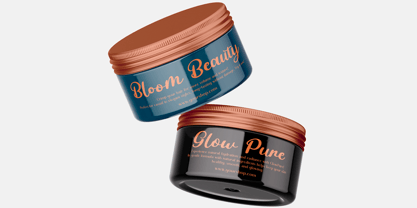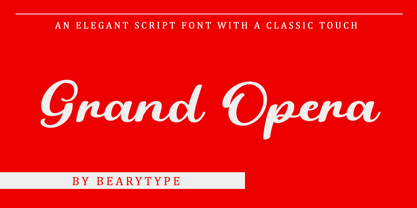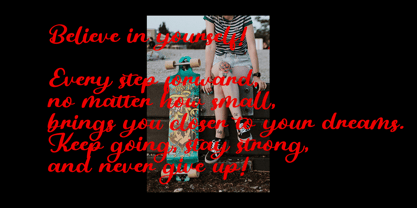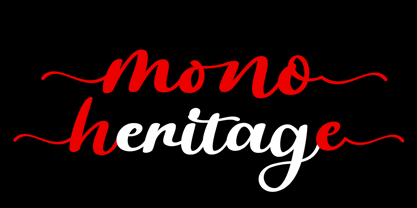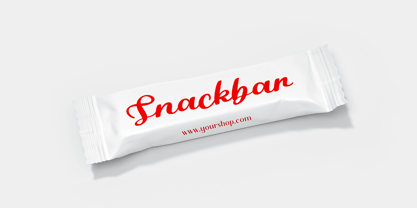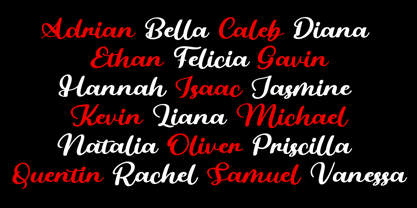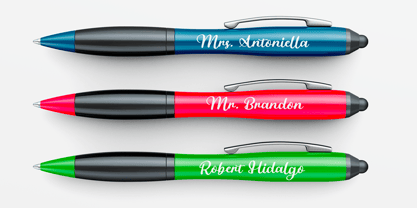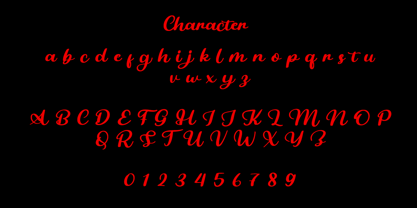
Grand Opera
by Beary
The Grand Opera Font Family was designed by Dian Haniffan Hadi and published by Beary. Grand Opera contains 1 styles.
Introducing Grand Opera!
An elegant handwritten font with a captivating classic touch!
If you’re seeking a luxurious font for invitations, branding, or any other design that demands refinement, Grand Opera brings that sophisticated flair. With its delicate curves, it evokes the feeling of a handwritten masterpiece.
This isn’t your typical script… it’s filled with graceful strokes and subtle variations that make it feel like an authentic handwritten creation.
It features alternate characters for uppercase letters, giving you a more refined option for those special moments (just activate your Opentype features or copy-paste from Font Book for apps like Canva). Plus, each lowercase letter has its own swash variant to add that extra flourish :)